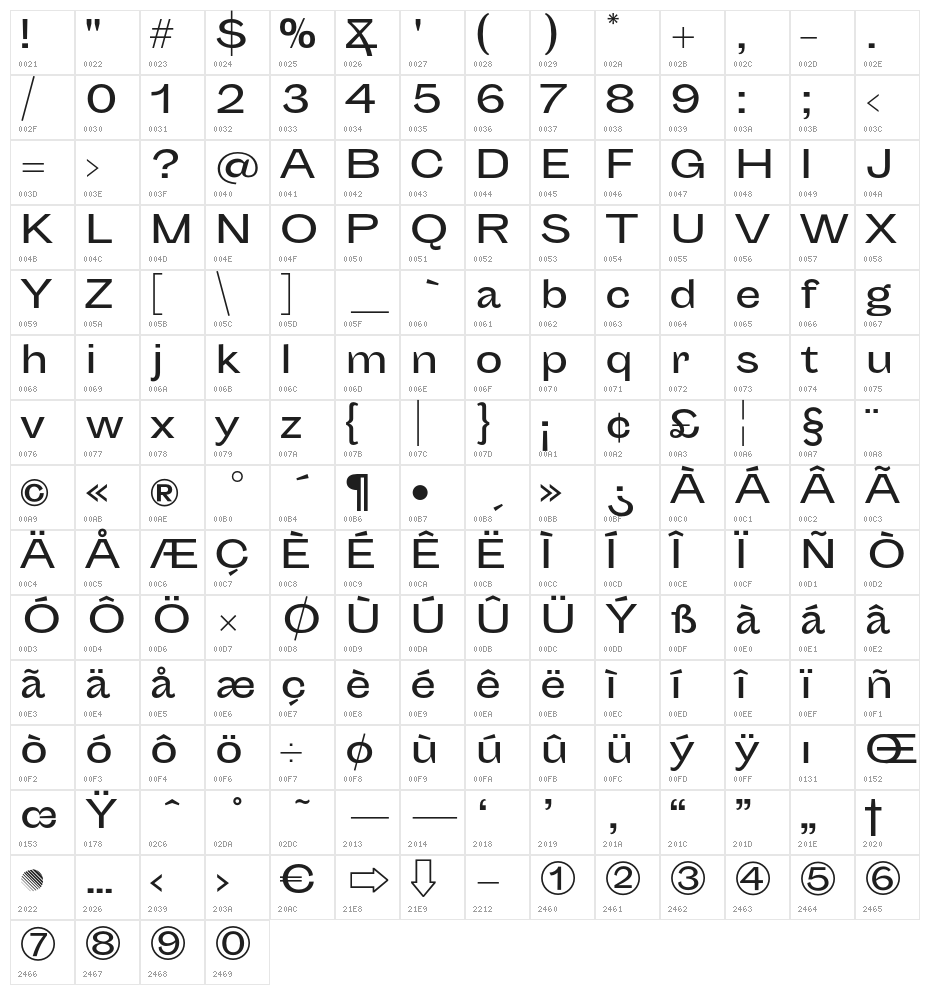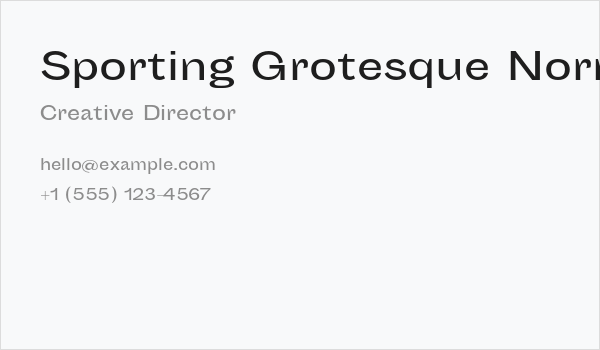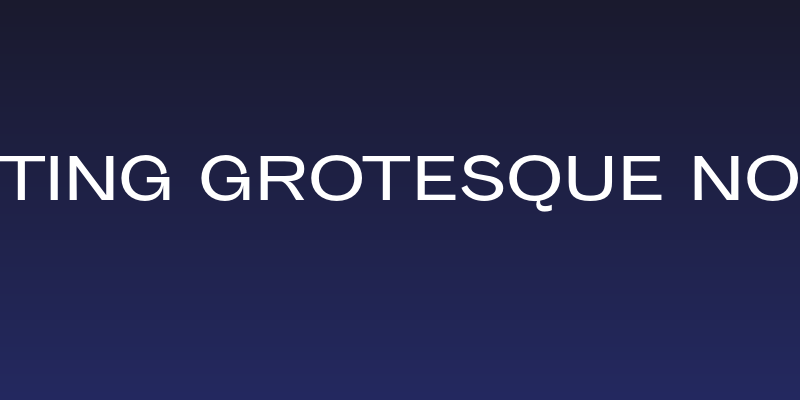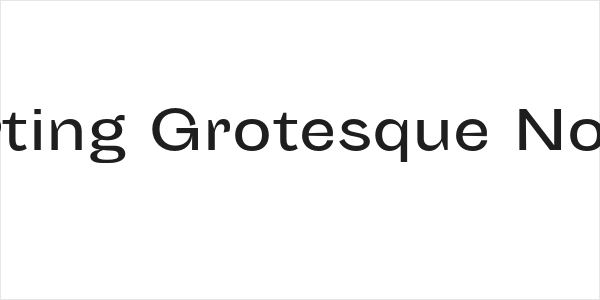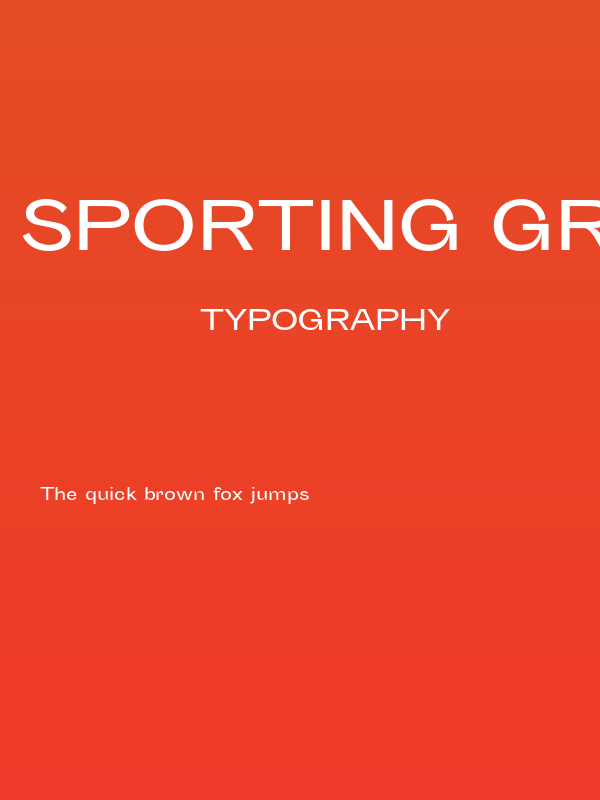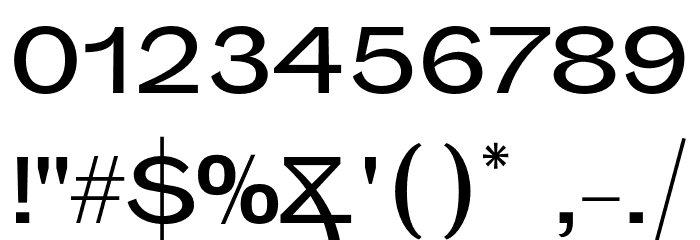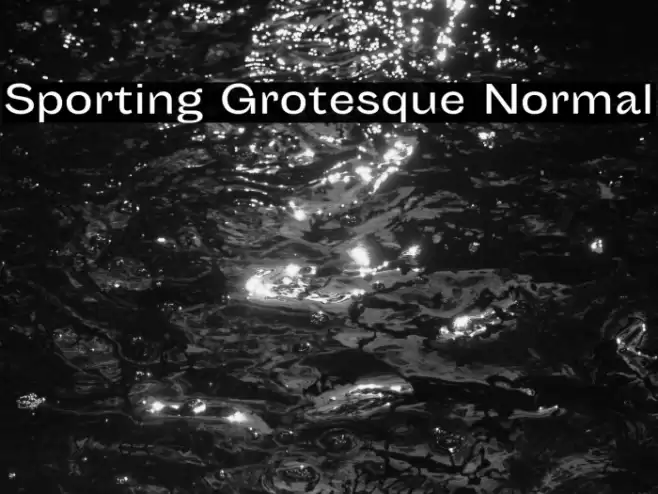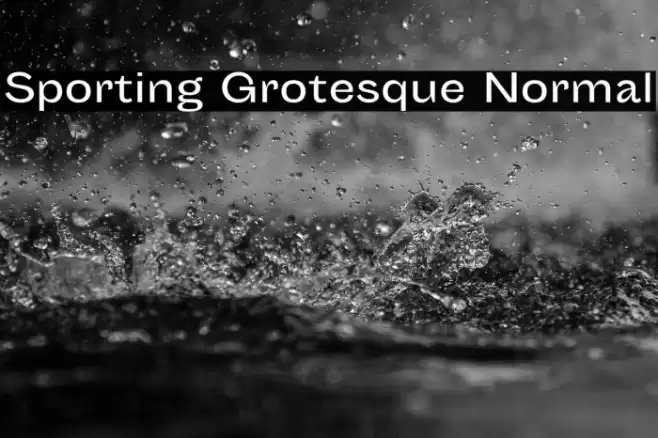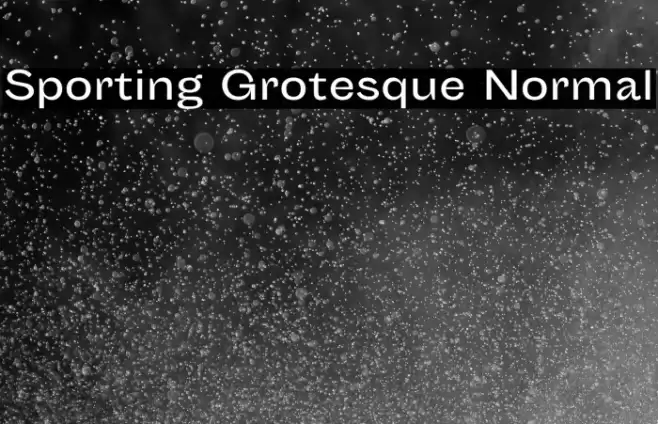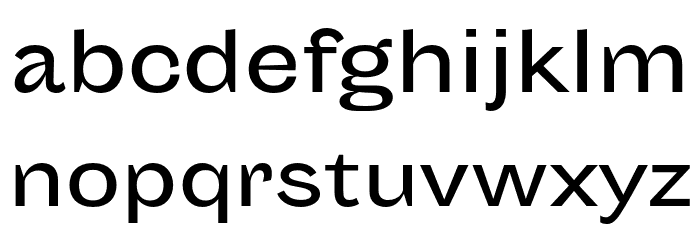
Sporting Grotesque Normal Font
Sporting Grotesque Normal Description
This font features a clean and modern sans-serif design, characterized by its geometric shapes and uniform stroke widths. The uppercase letters are bold and assertive, while the lowercase letters maintain a consistent and harmonious flow. The numerals are clear and easily distinguishable, making them suitable for a variety of applications. Special characters are well-integrated, maintaining the overall aesthetic of the font. The design is versatile, offering a contemporary look that can be adapted to various design needs.
| Use Case | Headlines, Body text, Logos |
| Proposed Projects | Ideal for branding, advertising, web design, and editorial layouts. |